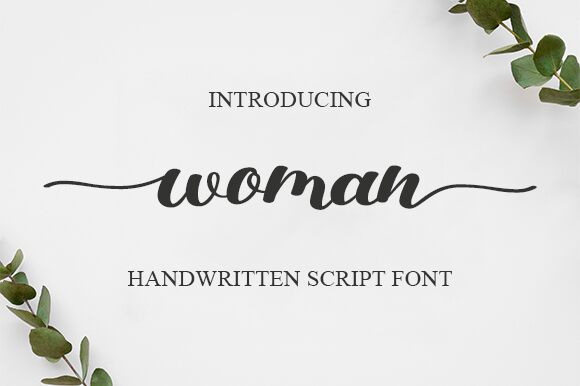
Woman
Woman, the bold and semi-expanded handwritten typeface designed by Graphix Line Studio, exudes a powerful feminine energy that is perfect for projects that need a touch of elegance and sophistication. Its unique style is ideal for invitations, greeting cards, and branding materials like logos and packaging. The font's bold weight makes it easy to read even in larger sizes, while its semi-expanded width gives it a sense of fluidity and movement. With Woman font, you can add a touch of grace to any project you're working on – let your creativity flow!